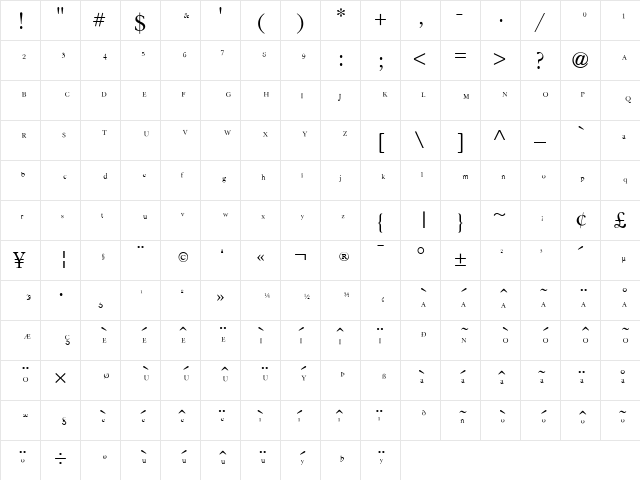
Religion Regular Font Preview
Religion Regular
Religion Regular Font Details
Design Context for Religion Typeface
Religion is a composed and adaptable typeface that performs quietly and consistently across a wide range of design contexts.